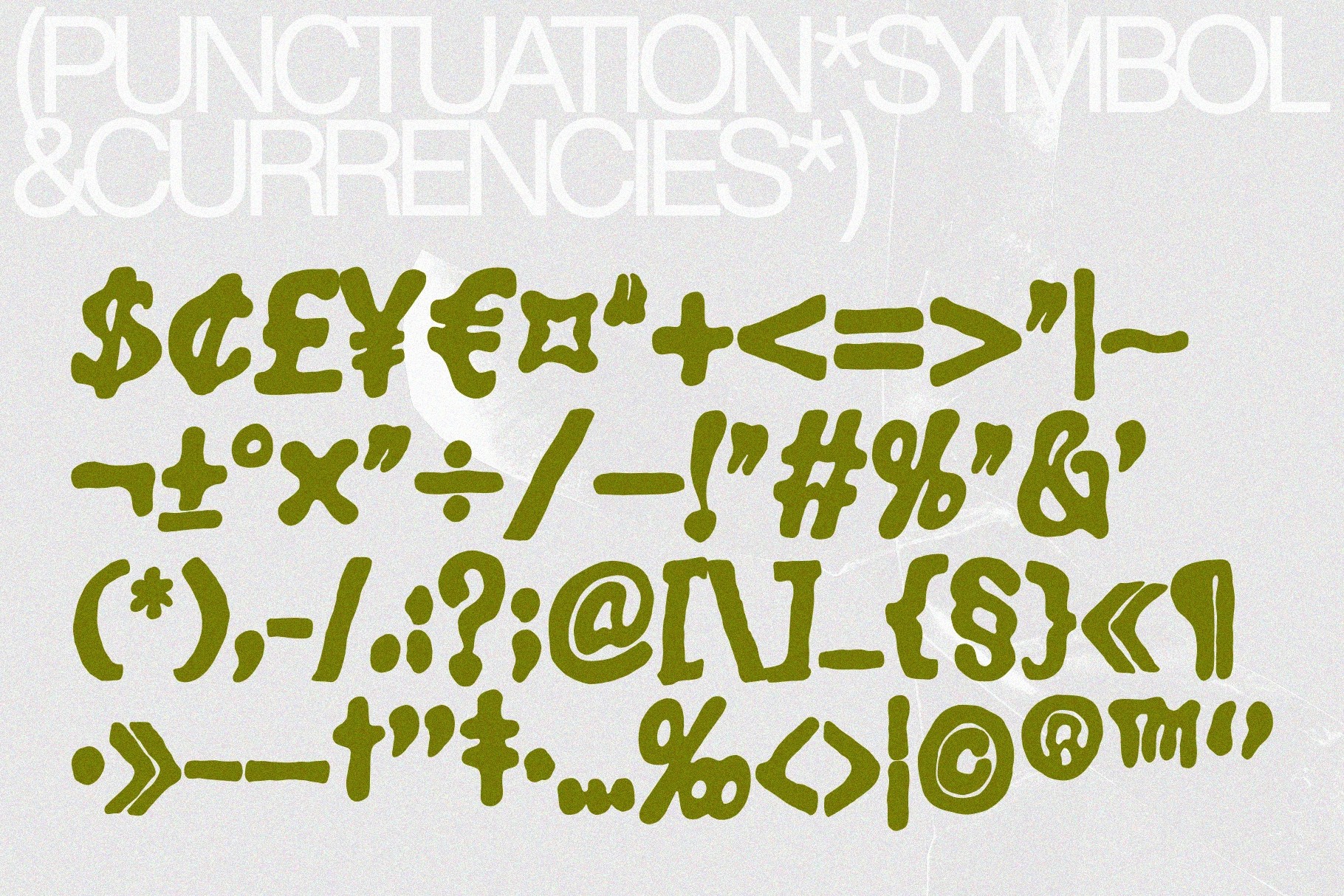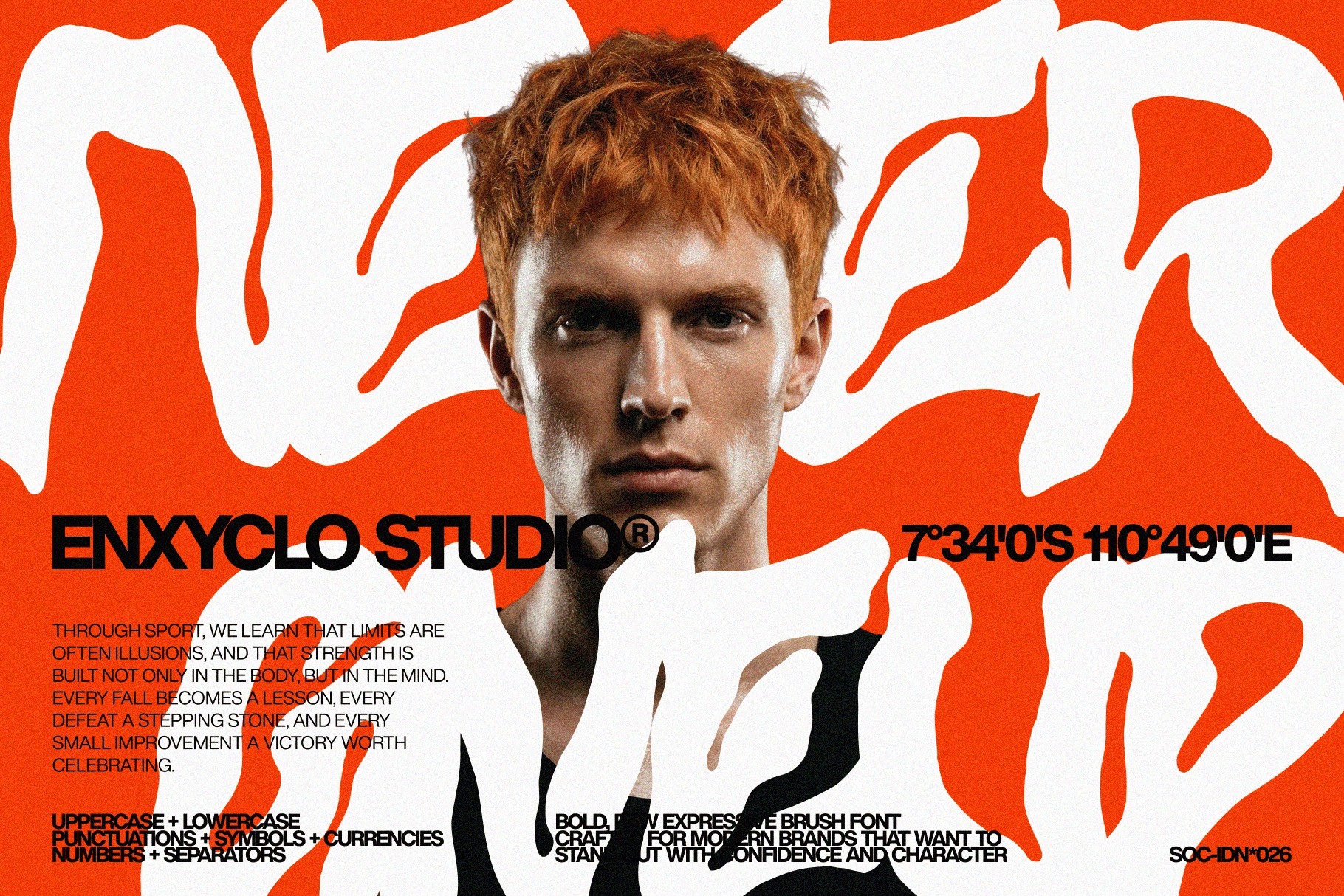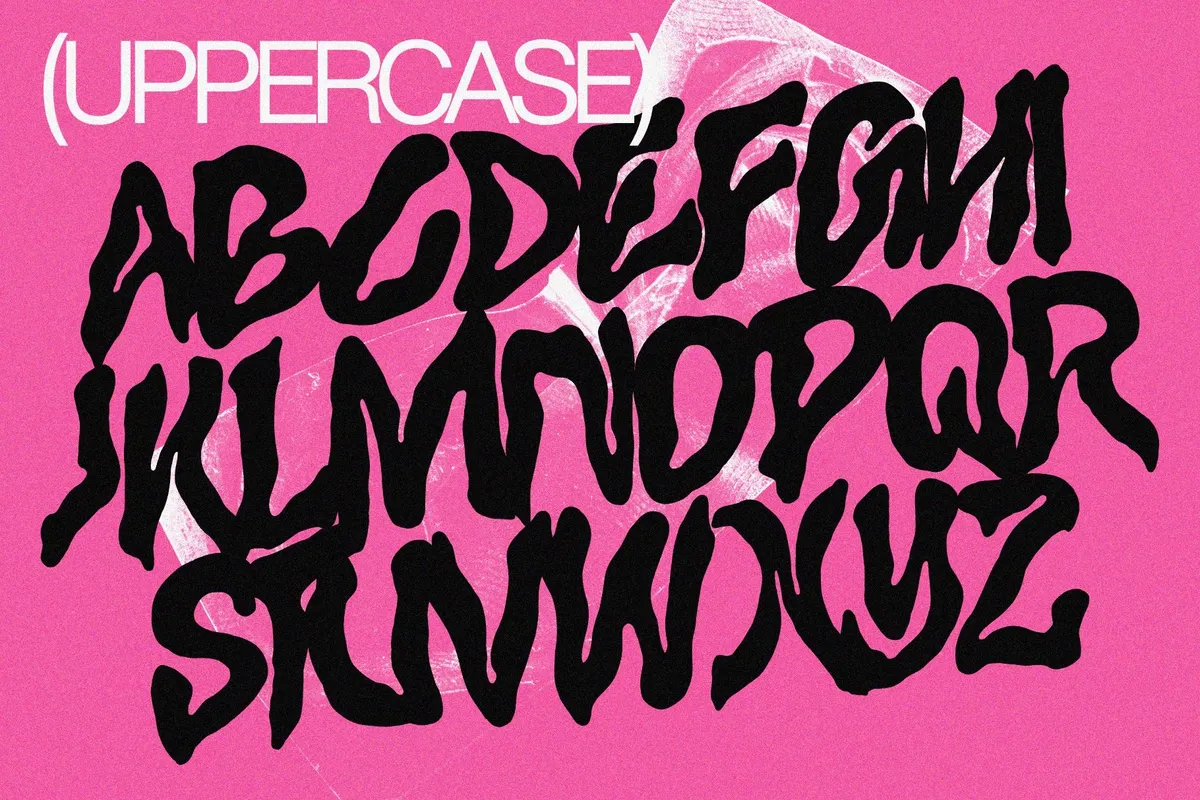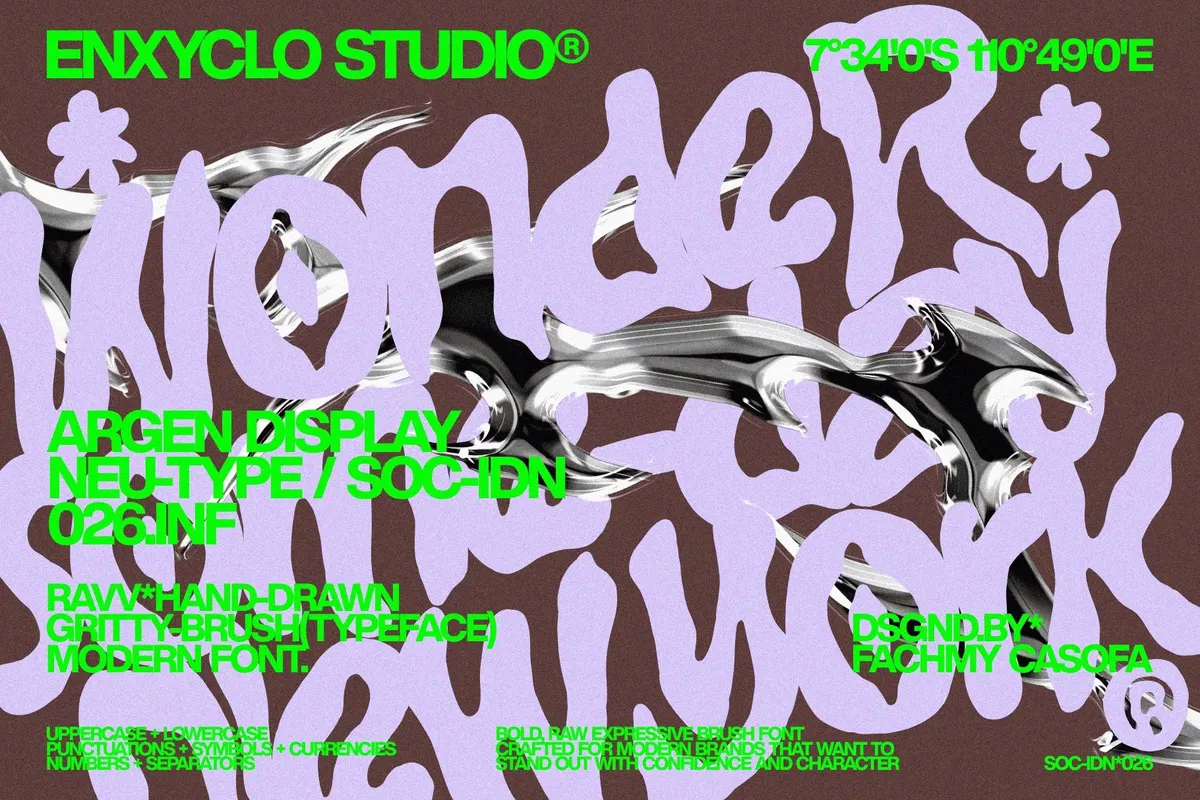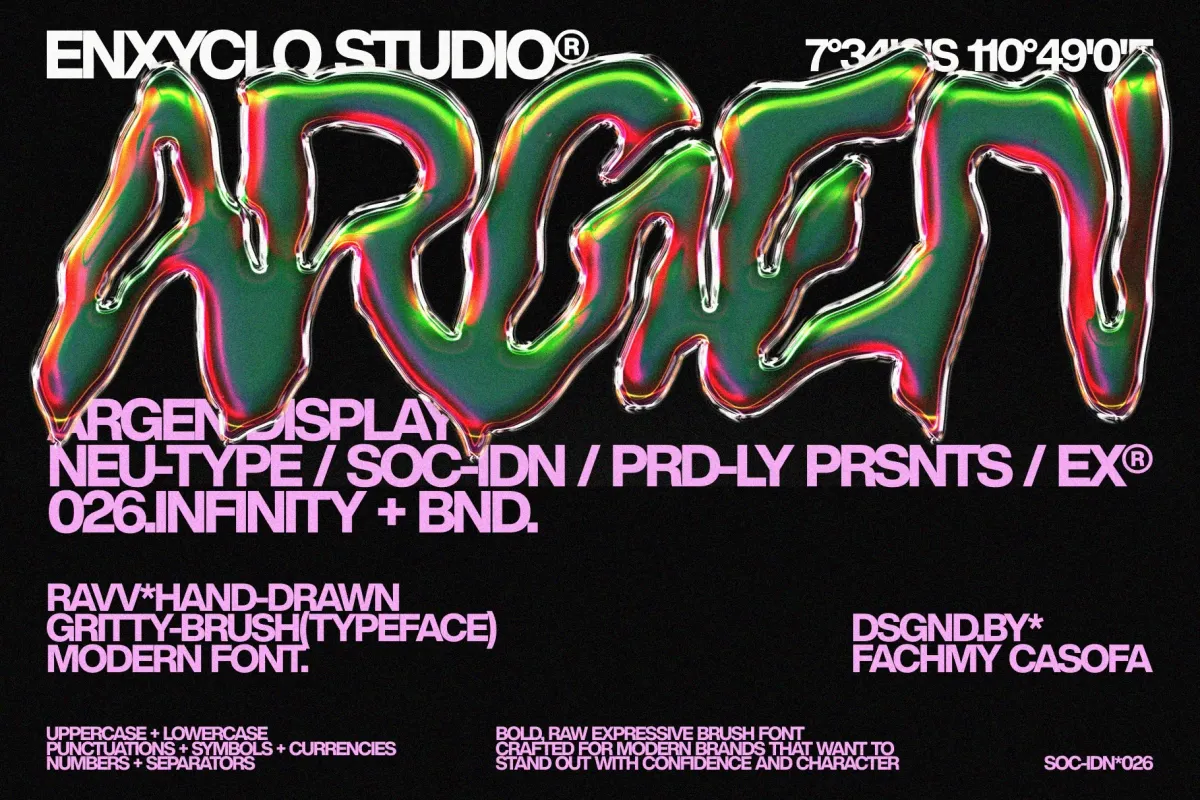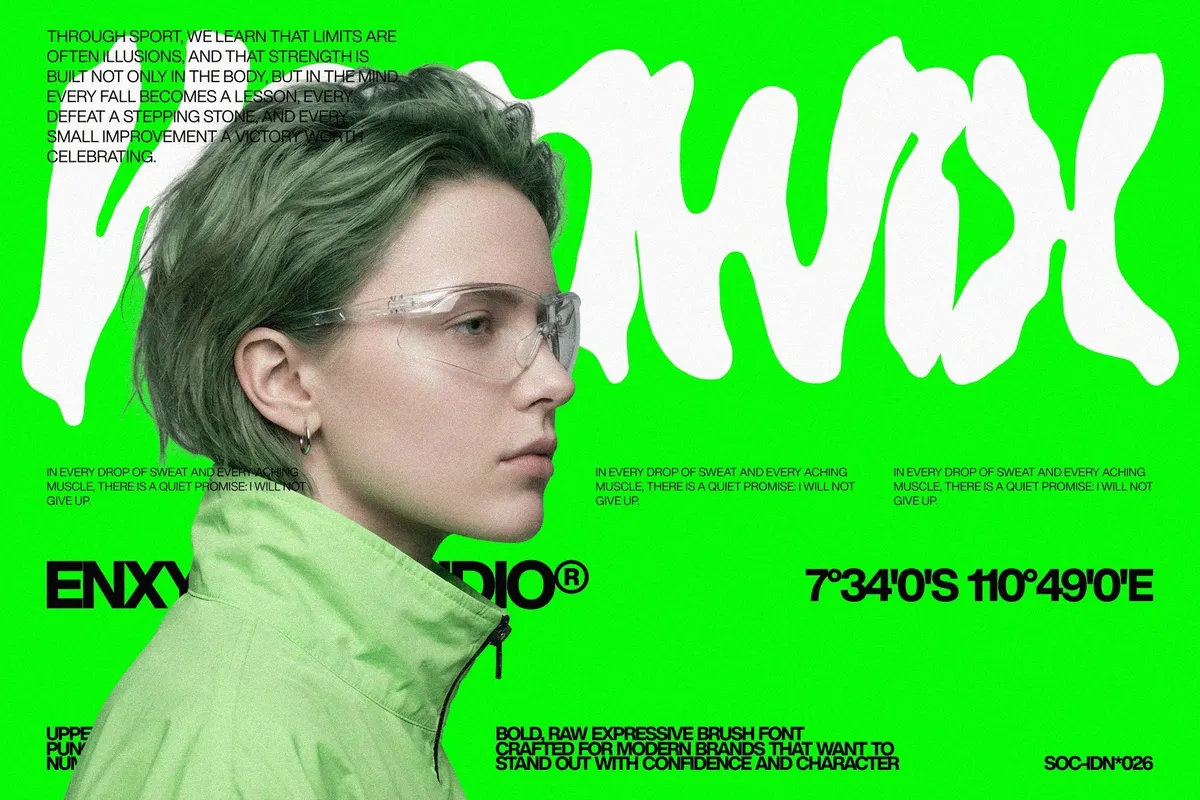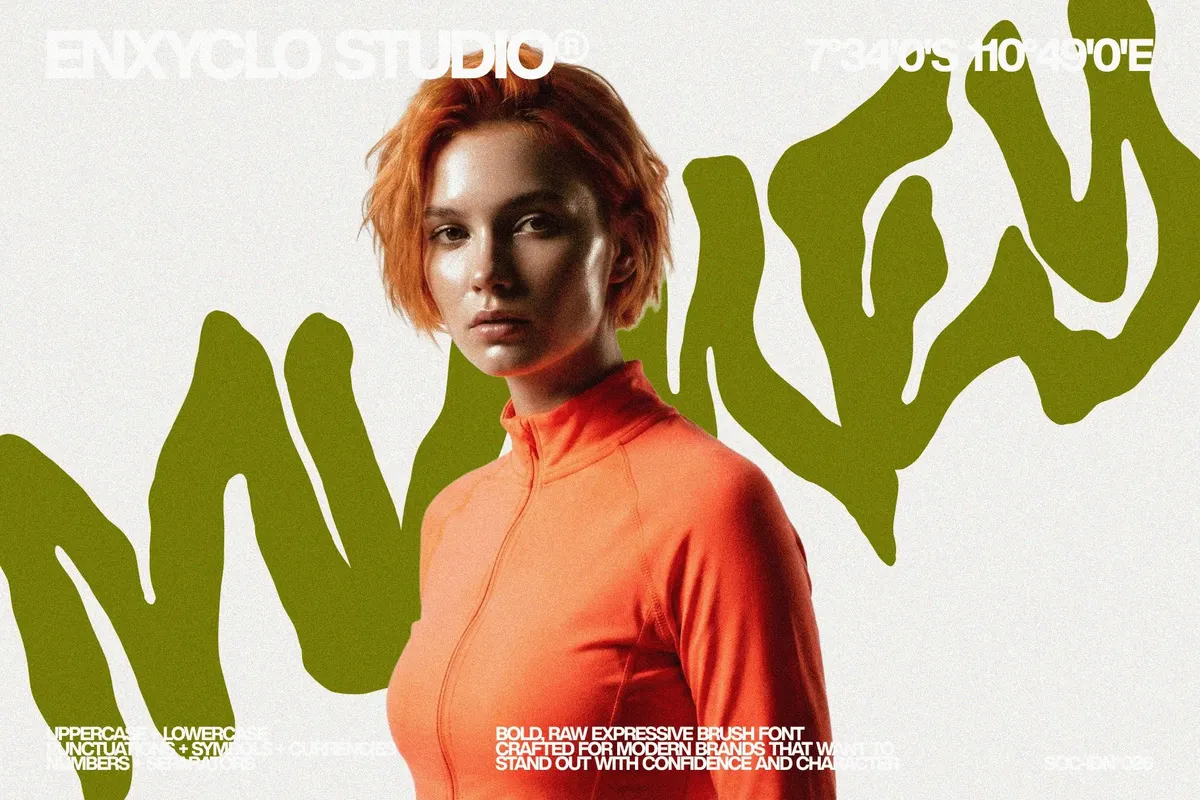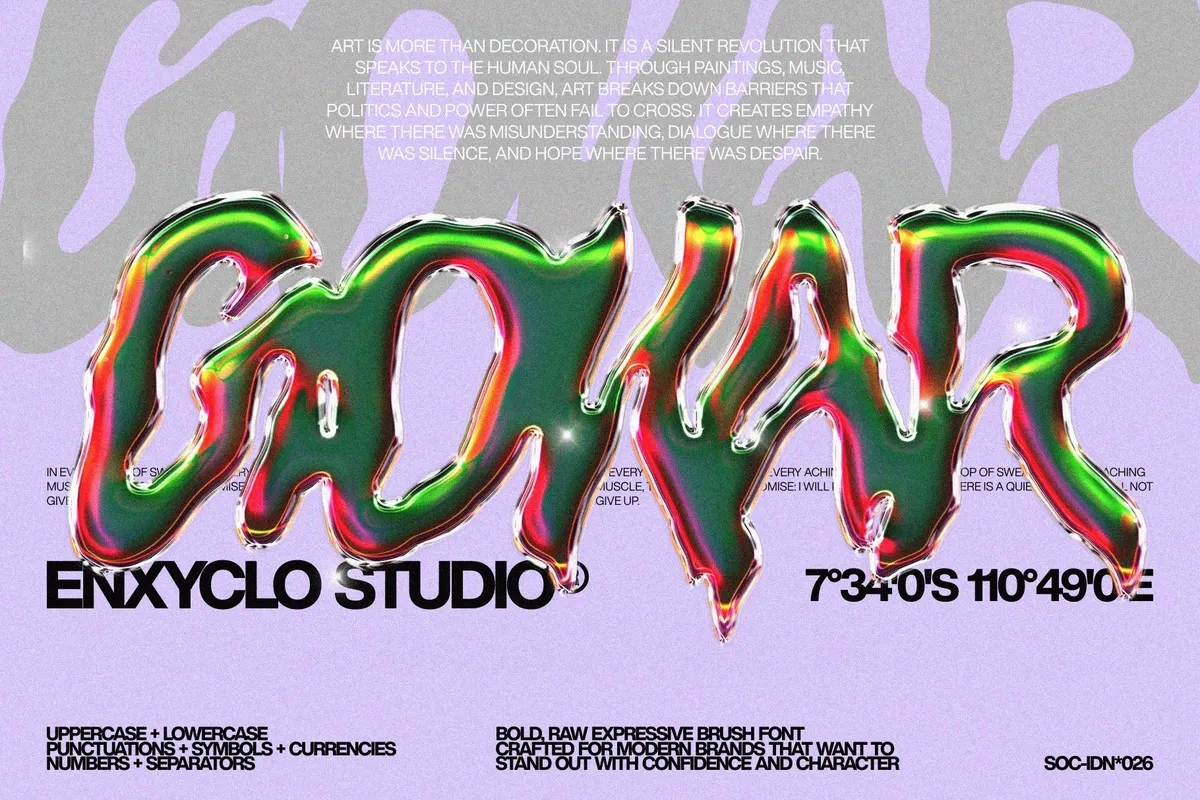
Argen - Hand-Drawn Brush Font
ARGEN
Argen – Hand-Drawn Brush Font is a bold expressive brush typeface inspired by raw hand-painted lettering and modern creative branding. Built from energetic brush strokes and textured forms, this font delivers an authentic handcrafted feel while maintaining a clean and balanced structure. Its dynamic shapes create a powerful visual rhythm that brings personality, movement, and confidence to every design.
Perfect for logos, branding systems, posters, packaging, and social media graphics, Argen adds a strong creative voice to modern visual projects. The combination of rough brush texture and contemporary letterforms makes it ideal for designers who want typography that feels expressive, bold, and full of character.
- Uppercase & Lowercase Characters
- Punctuation Marks
- Symbol Set
- Currency Symbols
- Hand-Drawn Brush Style with Bold Character